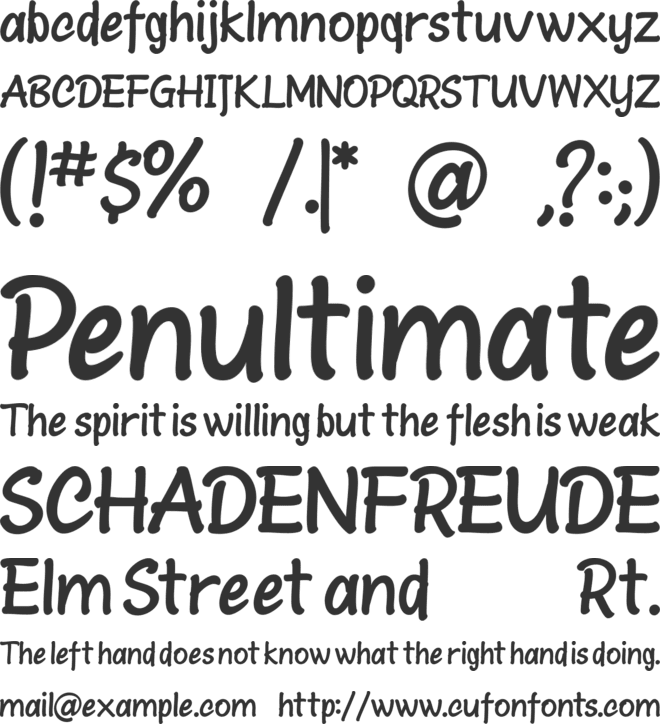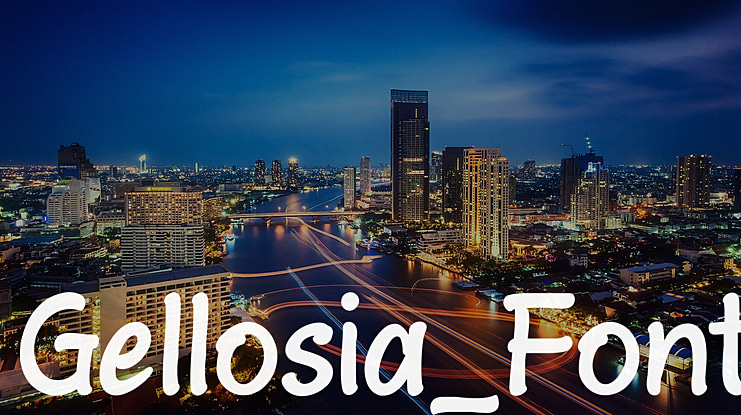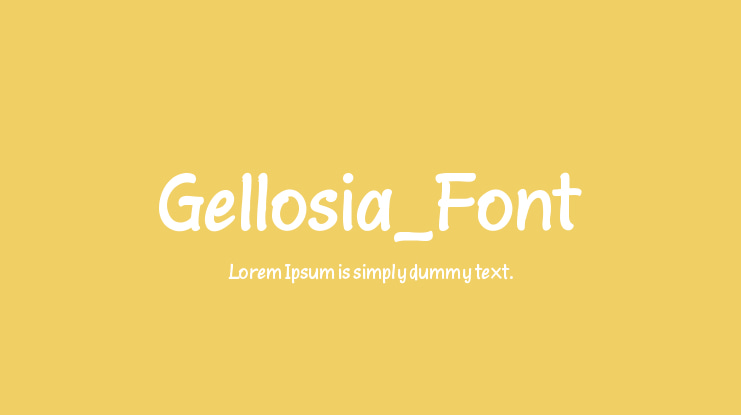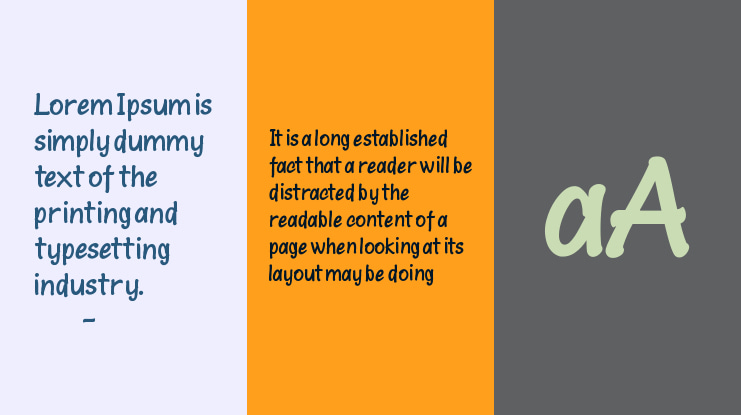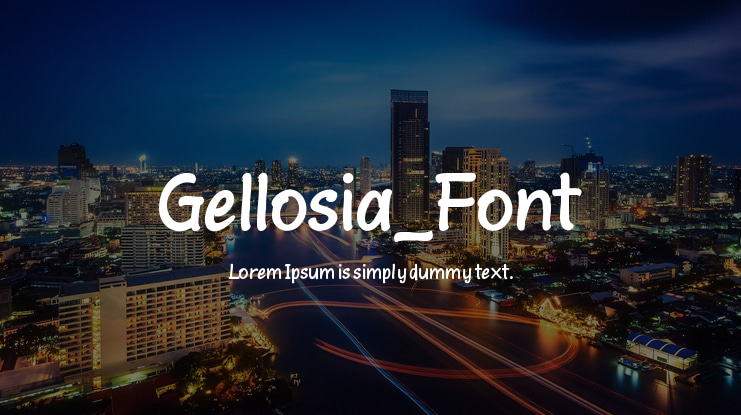
Gellosia_Font Font
Gellosia is a cute and whimsical sans serif font with a handwritten feel, made with all my heart, rounded corners, simple character easy legible, functional typeface, Use it to add a personal touch to your next design idea. Perfectly suited to branding, logos, brochure, book cover, poster, title, graphic design, social media banner, magazines, corporate use, brand identity, packaging etc.
Available in uppercase/lowercase letters, standard numbers and punctuation also Multilingual Support.